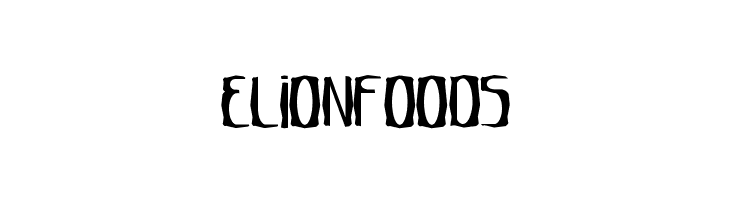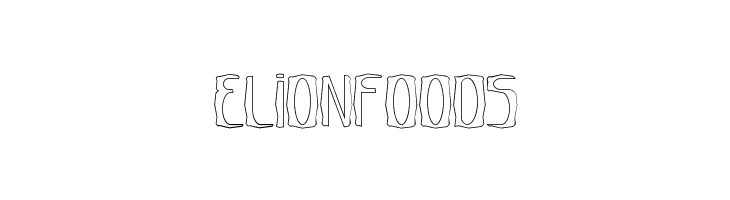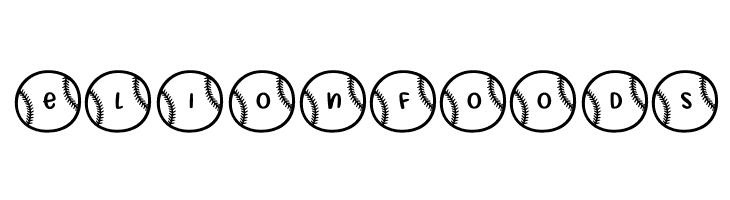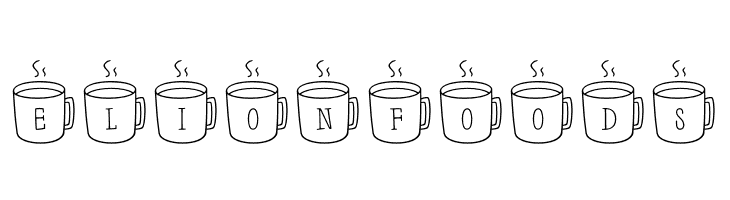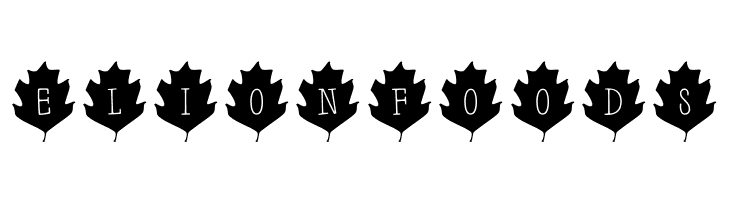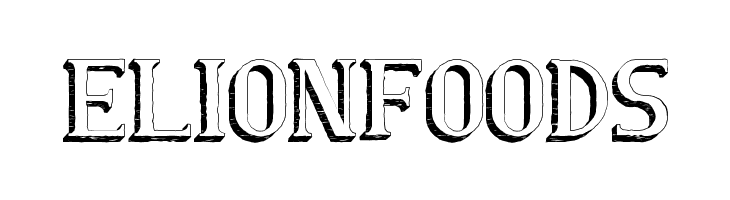
A distressed, hand-drawn font with a crumpled paper effect.
A crumpled, hand-drawn outline font with a modern, artistic flair.
A piano key-inspired font with high contrast and a bold, artistic style.
A decorative font with characters inside baseball-themed circles, ideal for sports designs.
A playful, block-themed font with a 3D effect, ideal for children's projects.
A whimsical font with characters inside steaming coffee mugs.
A decorative font with characters enclosed in leaf outlines, perfect for nature-themed designs.
A decorative font with characters inside leaf silhouettes, combining nature themes with serif elegance.
A playful decorative font with cat silhouettes integrated into each letter.
A bold, decorative font with a vintage, three-dimensional style.